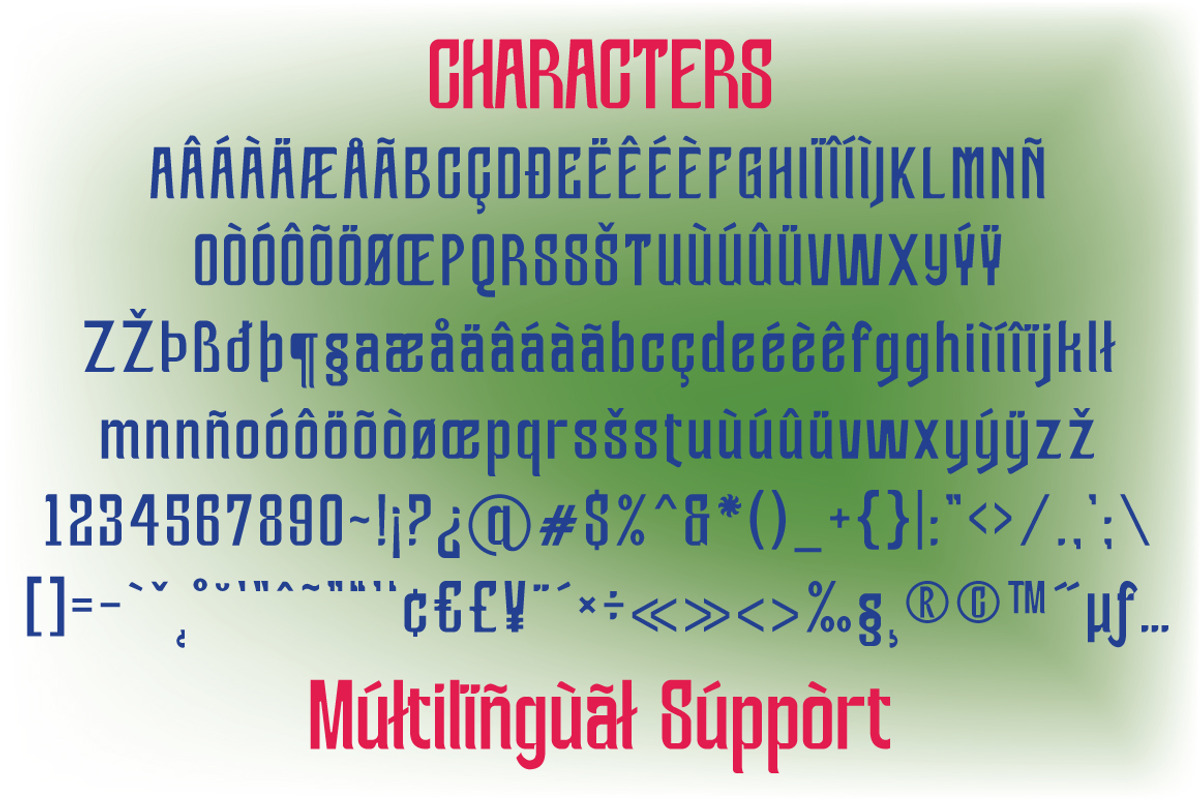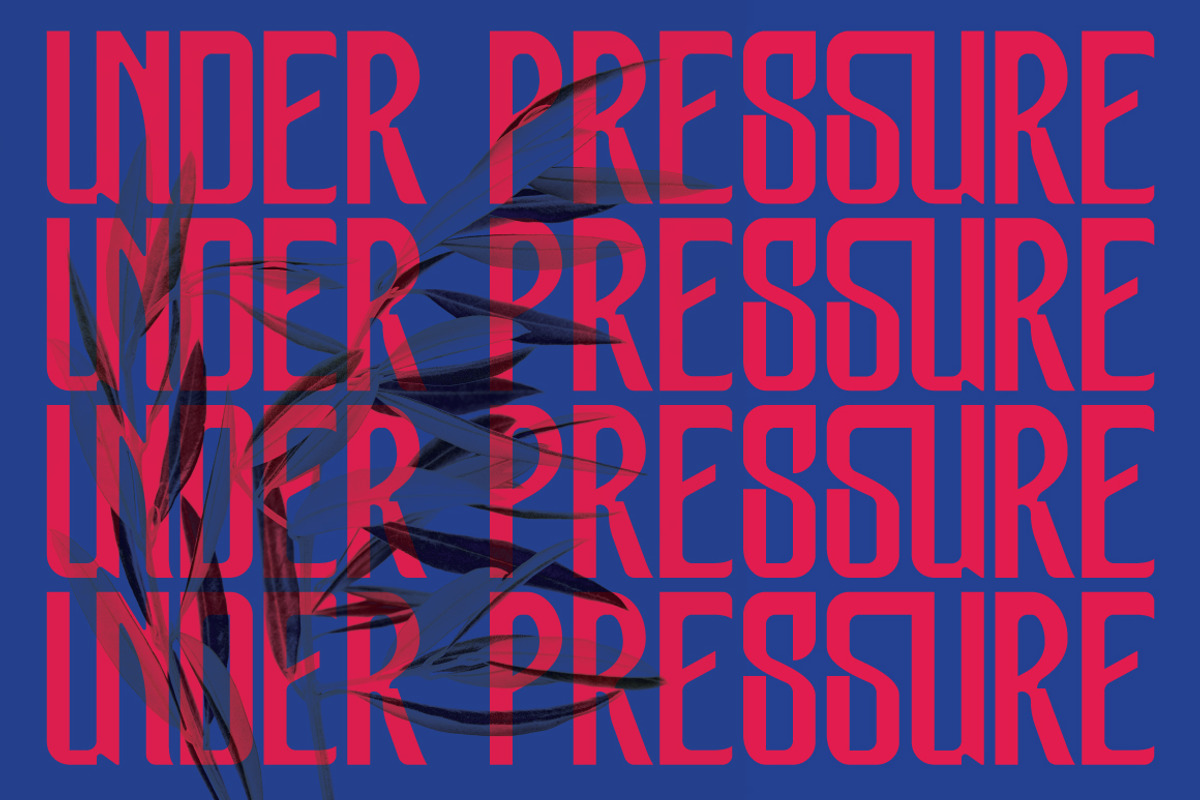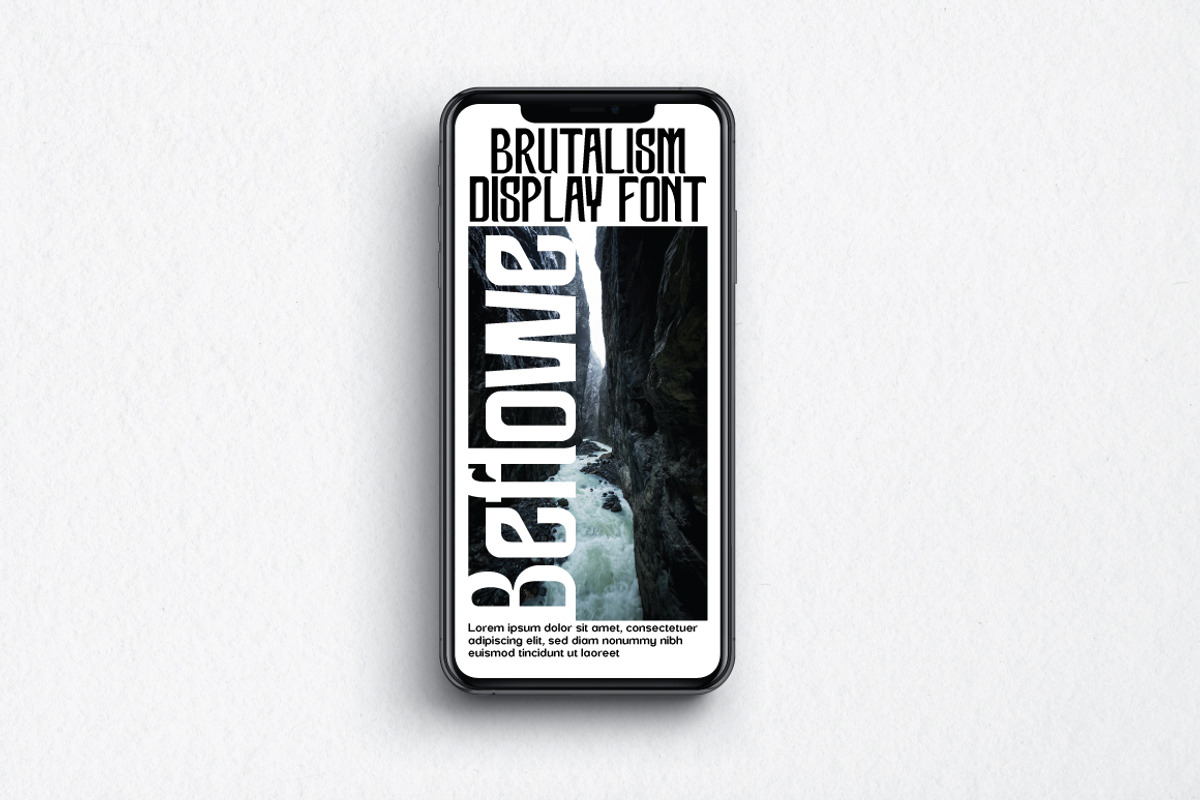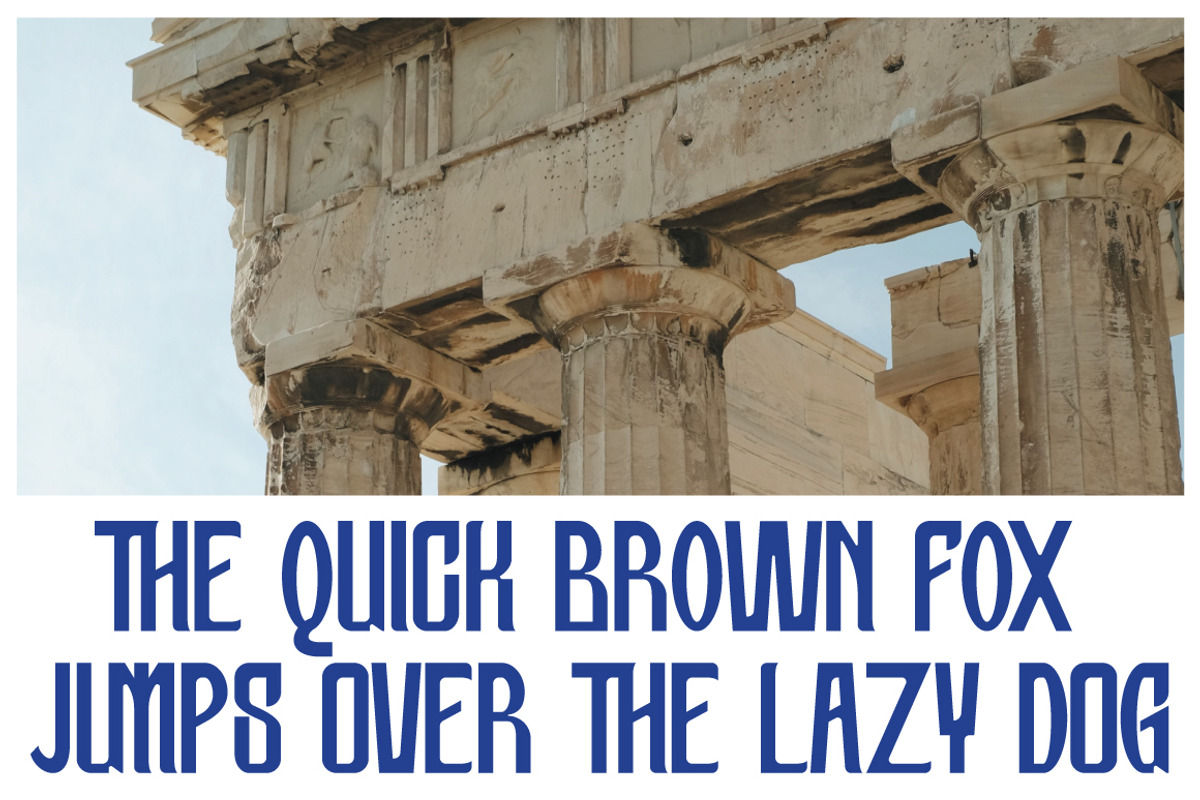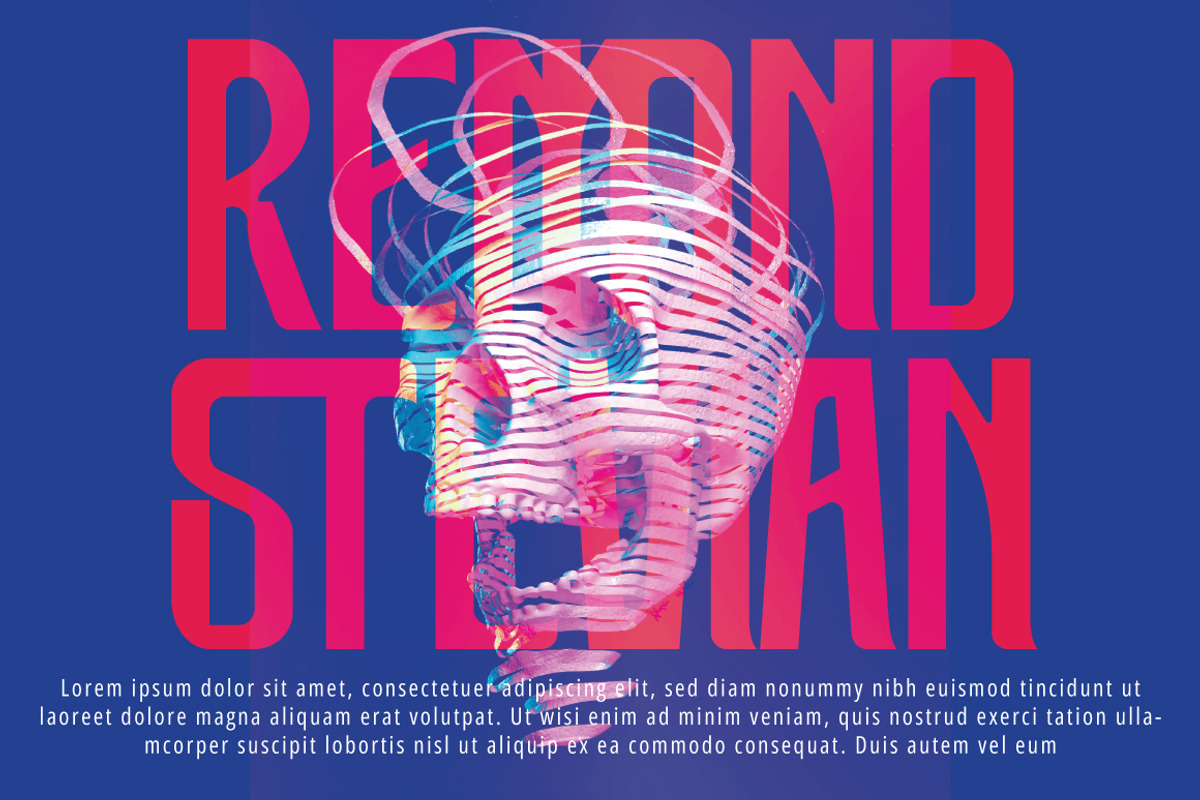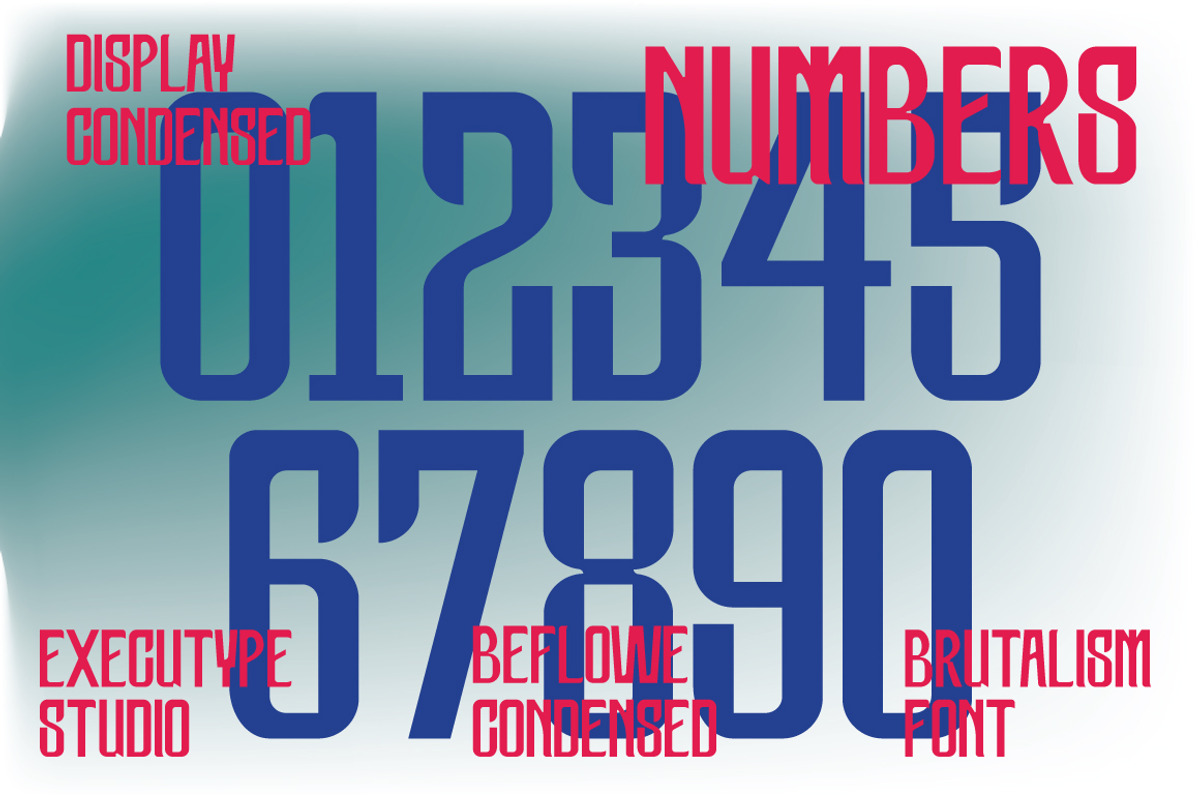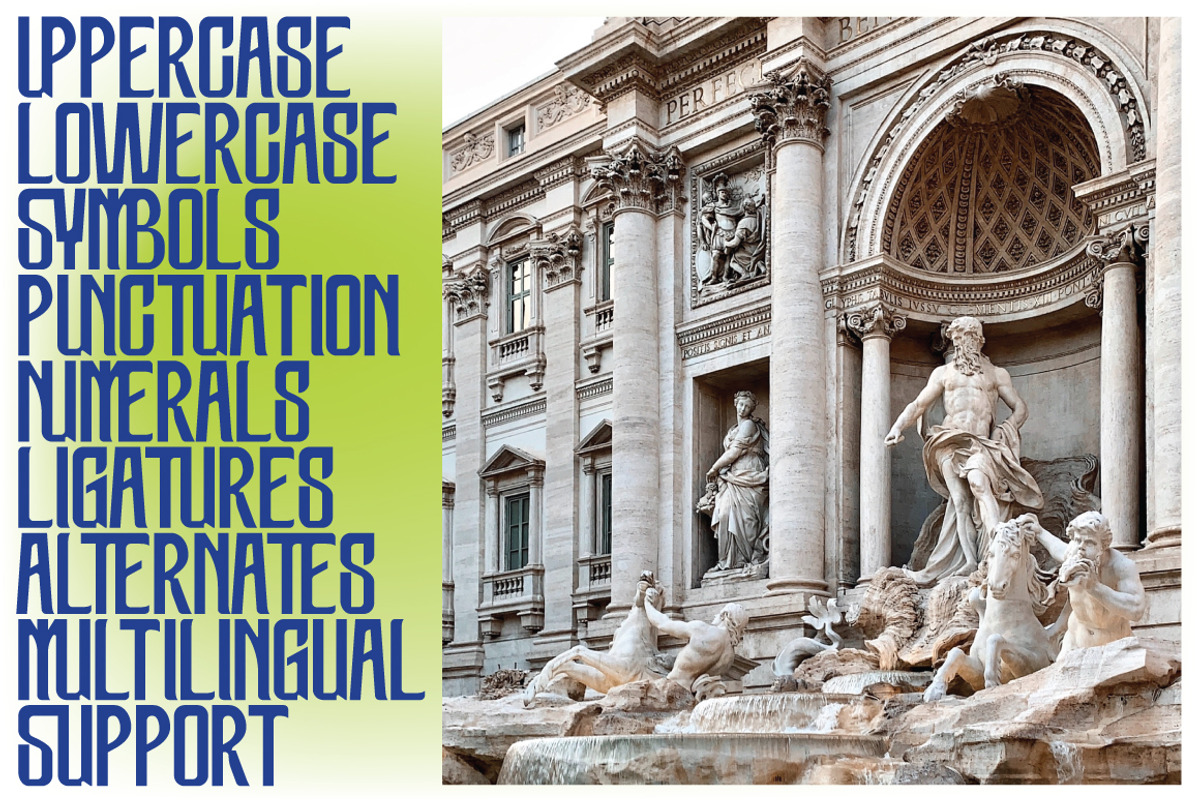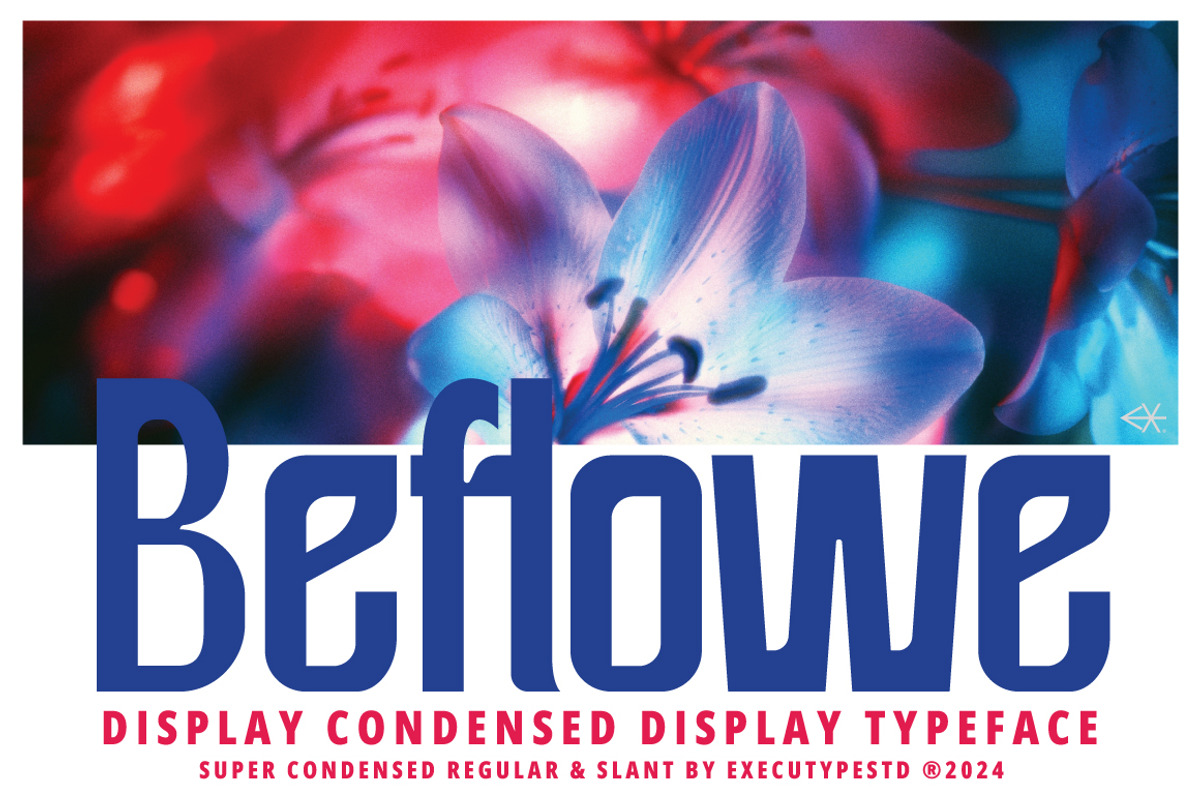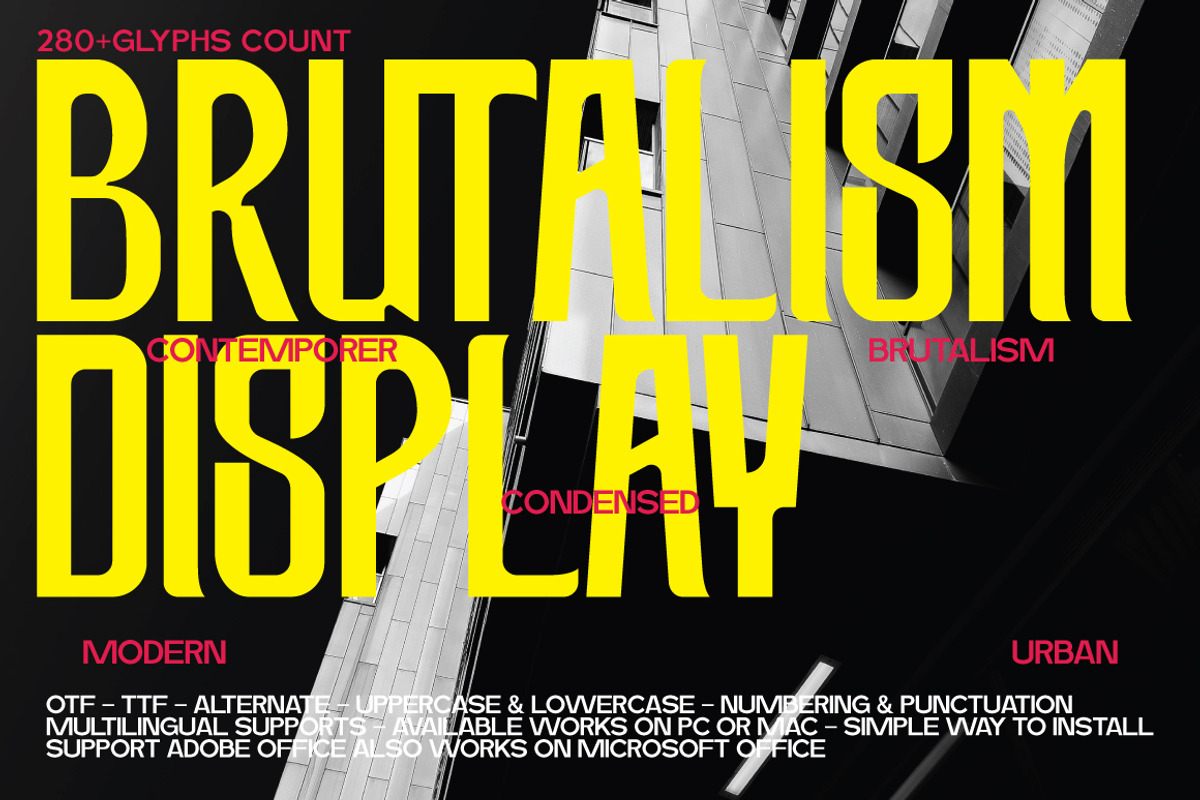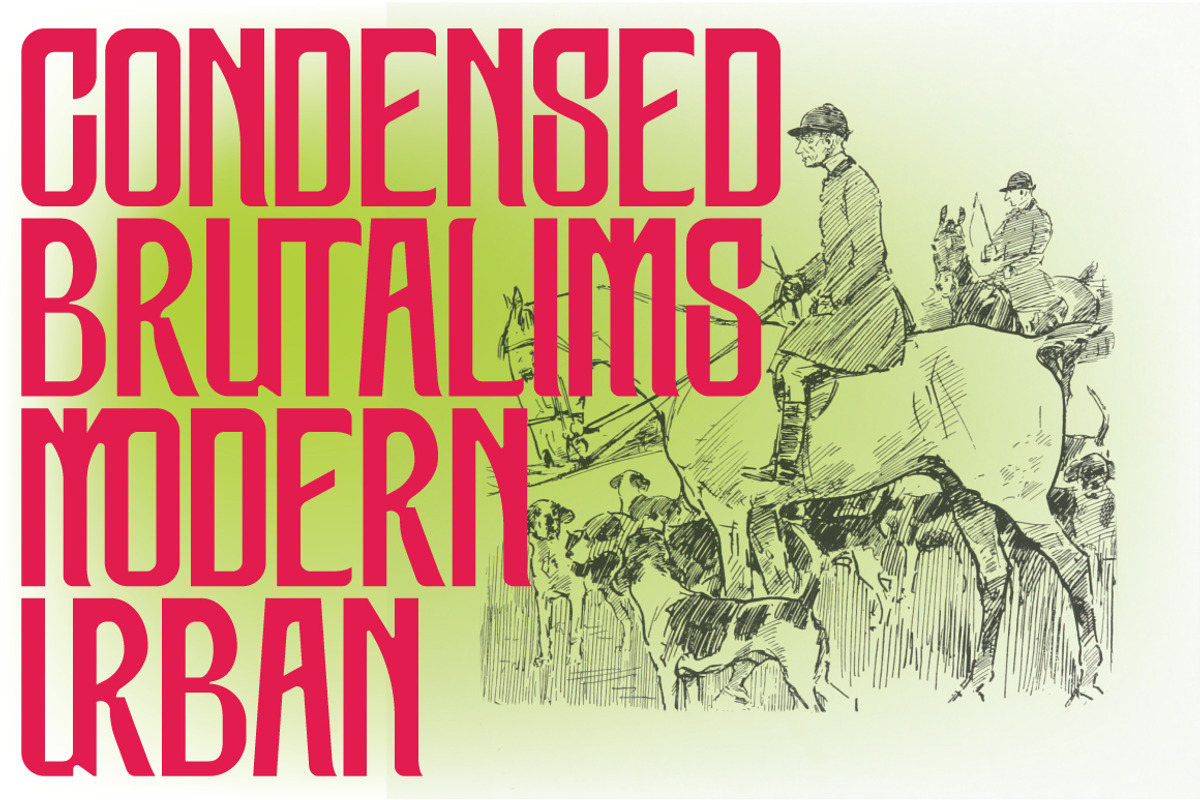
Beflowe Condensed Display
Beflowe Condensed Display - A Condensed Bold Display Typeface
Beflowe Condensed Display the perfect bold and narrow font for headlines and captivating displays. Ideal for designers seeking a modern and impactful look with retro and vintage vibes. Transform your projects with this regular and slant, condensed typeface that demands attention.
Beflowe Condensed Display :